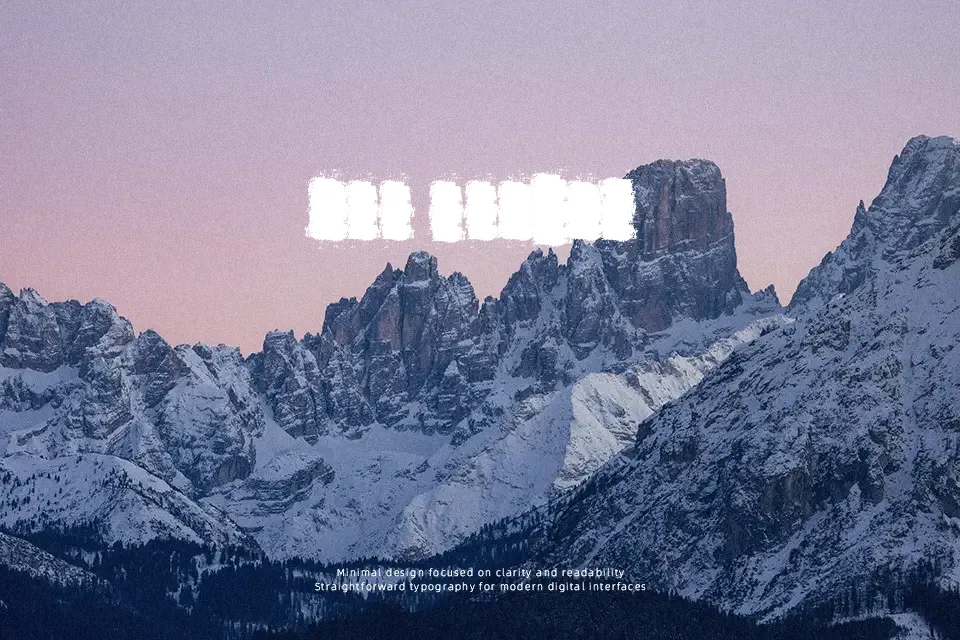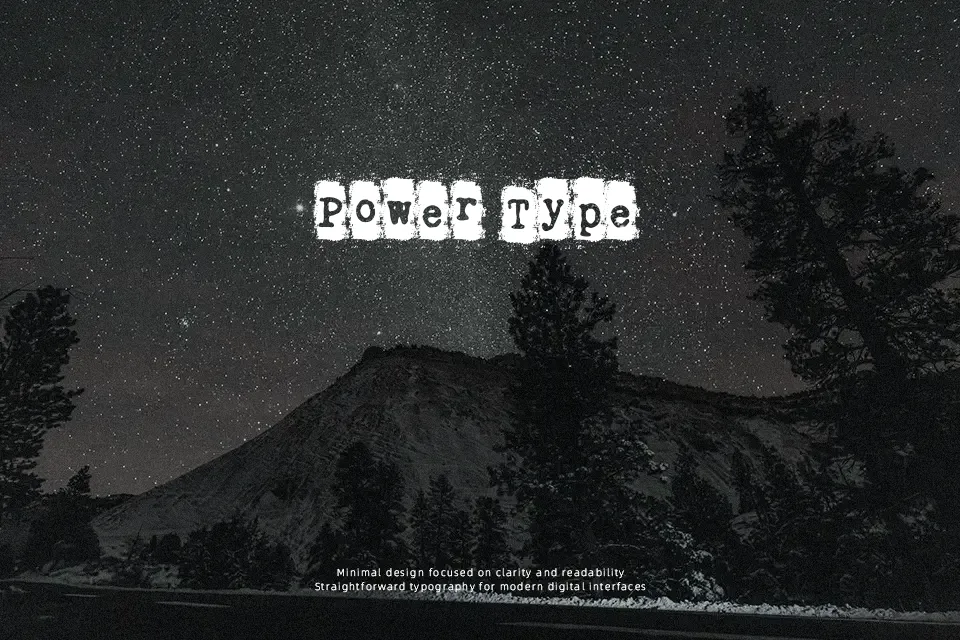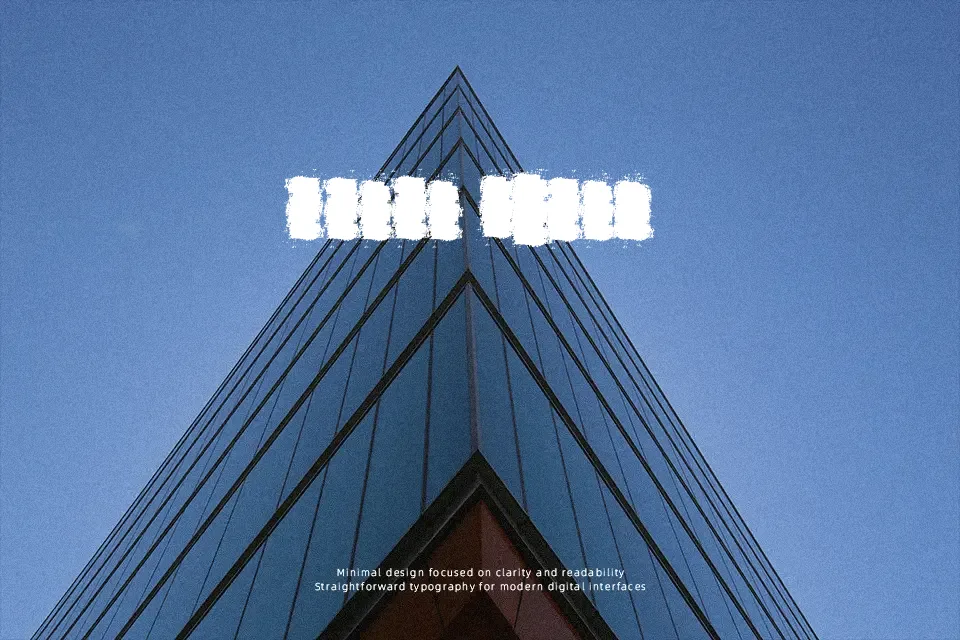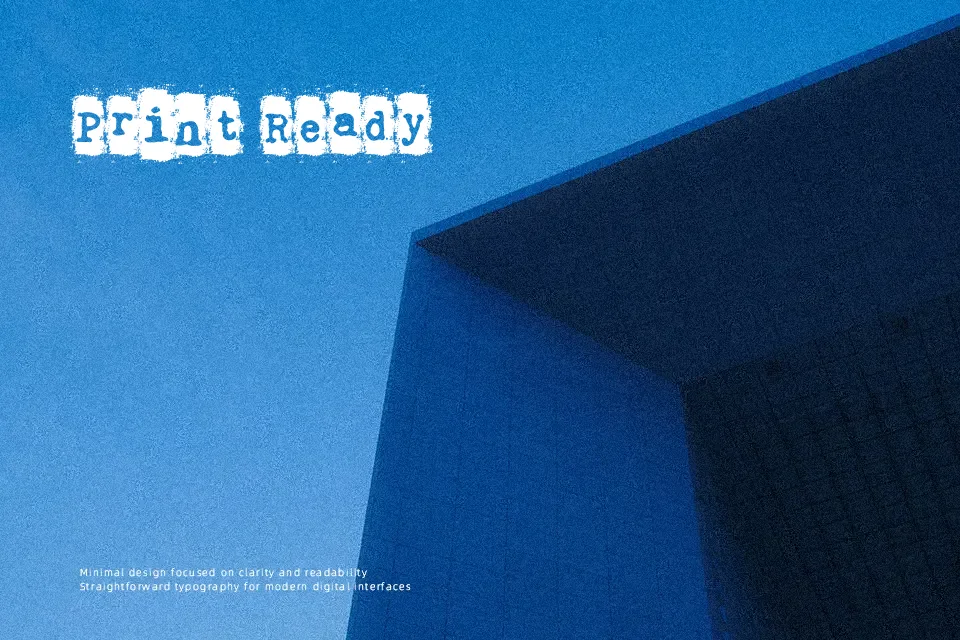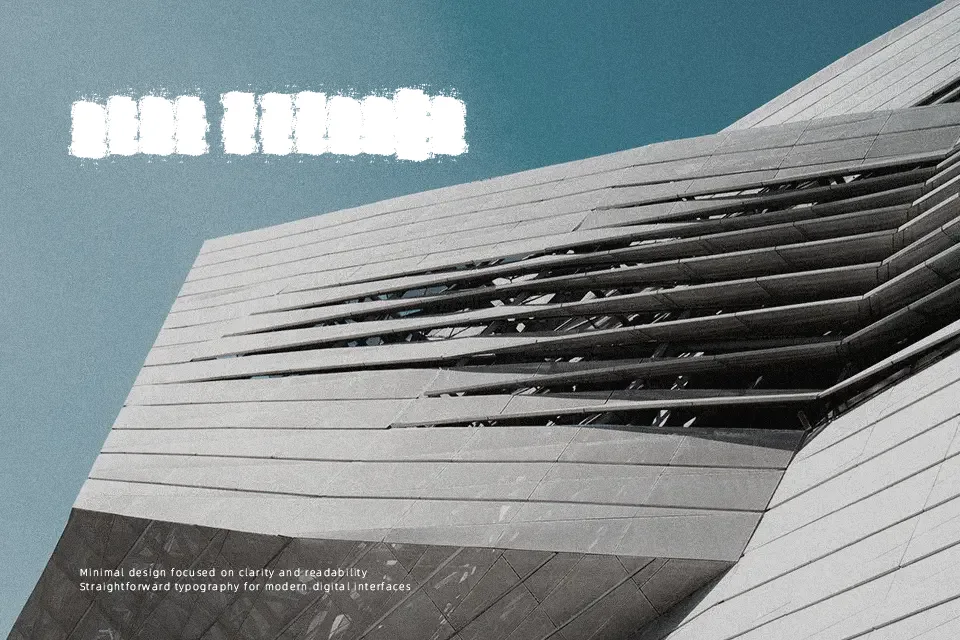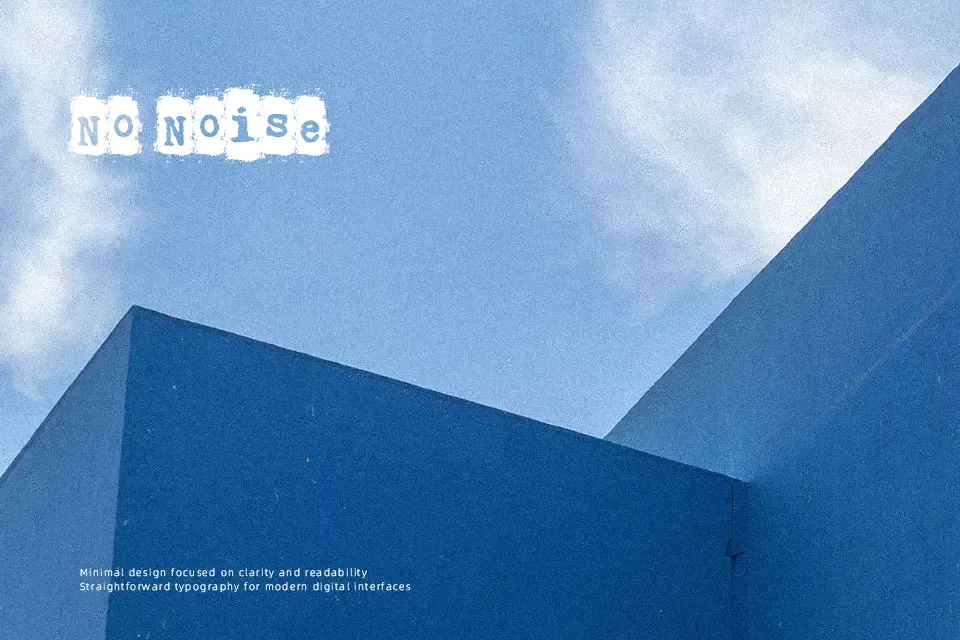
Trip Denied Font
Designed by Billy Argel Fonts ®
Trip Denied Font presents an aggressive display aesthetic characterized by heavily distressed strokes, eroded contours, and weathered typewriter-like proportions. Each glyph exhibits deliberate physical decay, featuring irregular ink bleed and fragmented outlines that establish an authentic tactile rhythm. The letterforms maintain consistent vertical heights paired with relatively tight horizontal spacing, which prevents the gritty textures from breaking letter coherence. While the sturdy weight ensures immediate visual recognition in large headline treatments, streetwear graphics, and themed packaging, the intense visual disruption compromises clarity at smaller sizes. Dense decorative destruction makes this typeface unsuitable for extended body copy.
Best For: distressed music album covers, vintage apparel graphics, rugged product packaging, horror film titles
Not Ideal For: long paragraph text, mobile app user interfaces, corporate annual reports, small legal disclaimers
Perfect for headline, logo, and music, with a bold and decorative style.